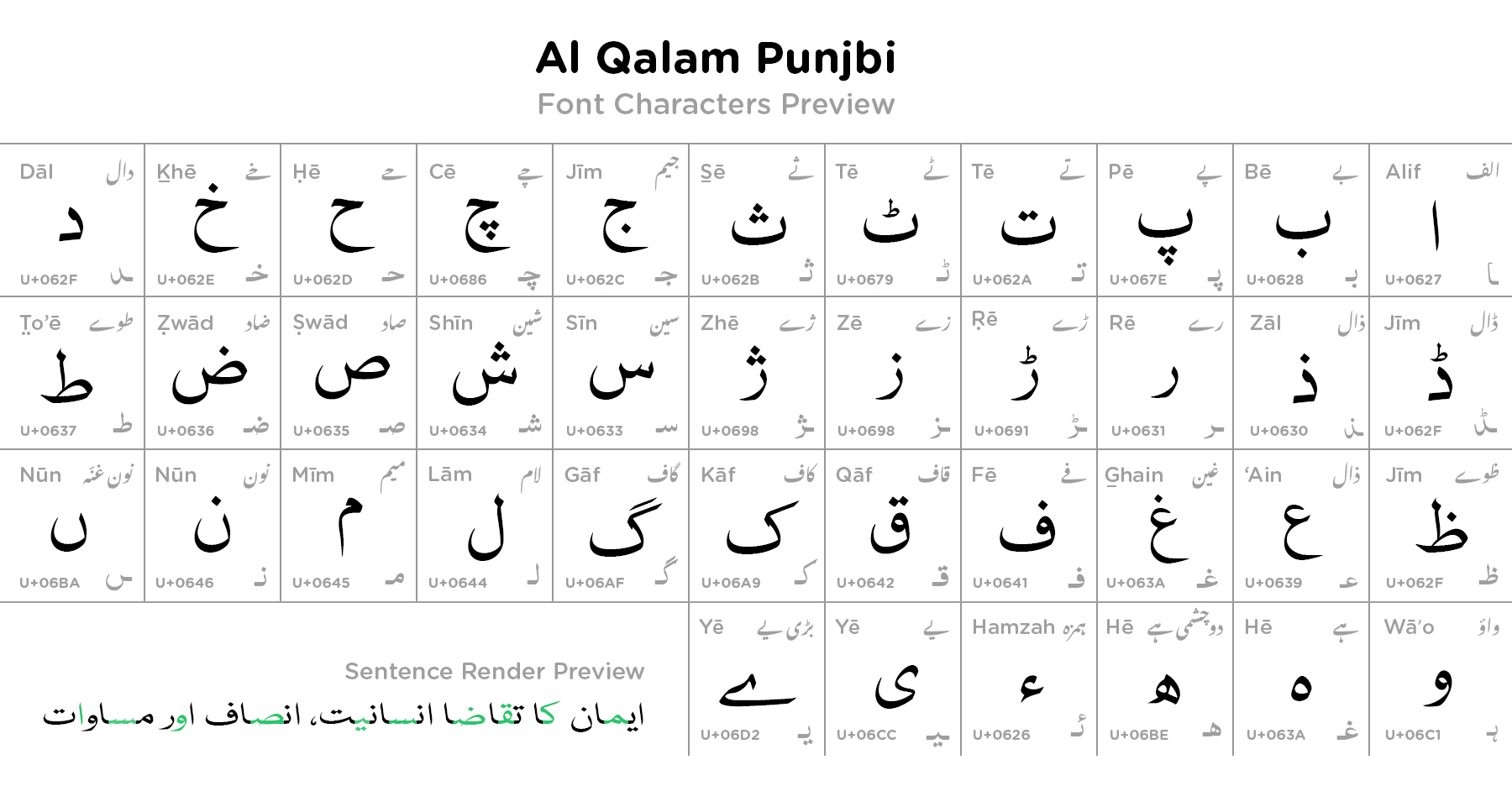
Al Qalam Punjabi, developed by font designer Syed Shakir ul Qadree, offers a modern, less decorative font with regular dynamics. Inspired by the Naskh script and released on November 14, 2019, it boasts 216 characters and 332 glyphs, ensuring compatibility with various languages, including Urdu, Arabic, Latin, and Persian. With a single-weight option, this font maintains high legibility on screens, even at smaller sizes. However, it’s recommended for short text due to low readability at smaller resolutions over longer passages.
Characterized by its thick, dynamic strokes and delicate, changing edges, Al Qalam Punjabi exudes elegance with rounded corners and sharp edges. Its versatile nature makes it suitable for various applications, from plain text in magazines and newspapers to formatting documents and more. While less decorative, its refined look and feel add a touch of creativity to any project. Overall, Al Qalam Punjabi is a versatile choice for designers seeking a balanced blend of modernity and elegance in their typography projects. Moreover, the font’s compliance with the latest Unicode standards, including Basic Latin, Arabic, Latin-1 Supplement, Arabic General Punctuation, and more, increases its practicality even more.